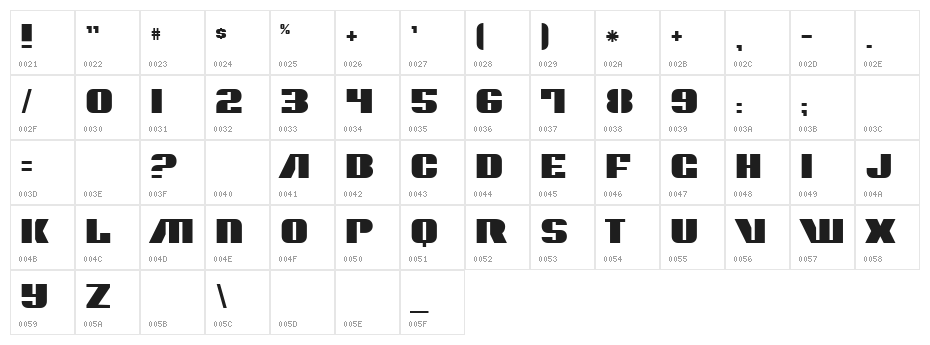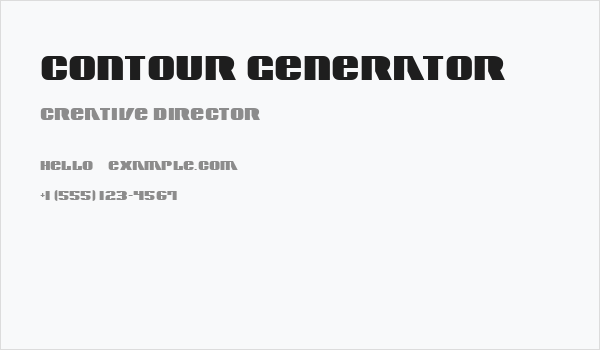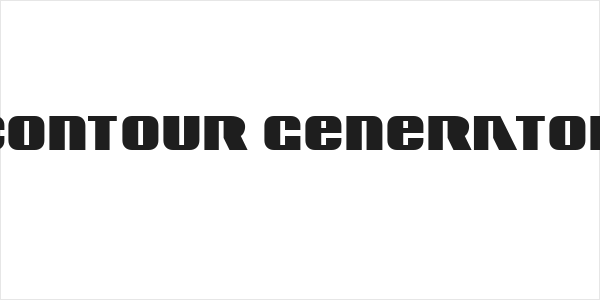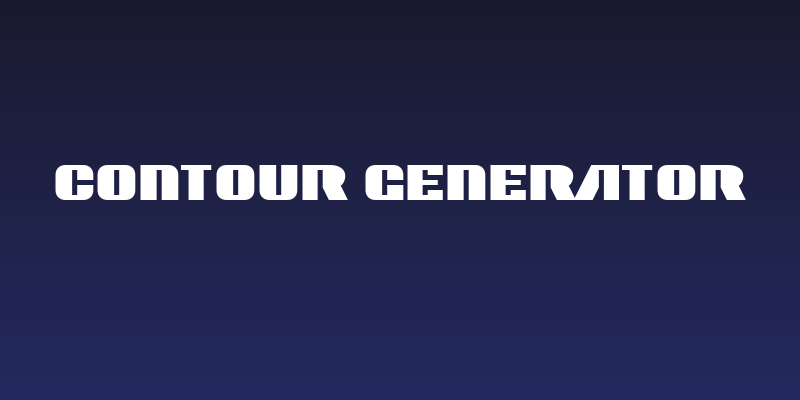
Contour Generator Font
Contour Generator Description
This font features a bold and striking design with a geometric and angular style. The characters are constructed with sharp edges and a blocky appearance, creating a sense of strength and modernity. The uppercase letters are particularly prominent, with a consistent height and width that enhances the uniformity of the typeface. The lowercase letters maintain the boldness of the uppercase, ensuring readability while adding a touch of uniqueness. Numbers and special characters follow the same design principles, making them stand out with their robust and impactful look. This font is ideal for projects that require a strong visual presence.